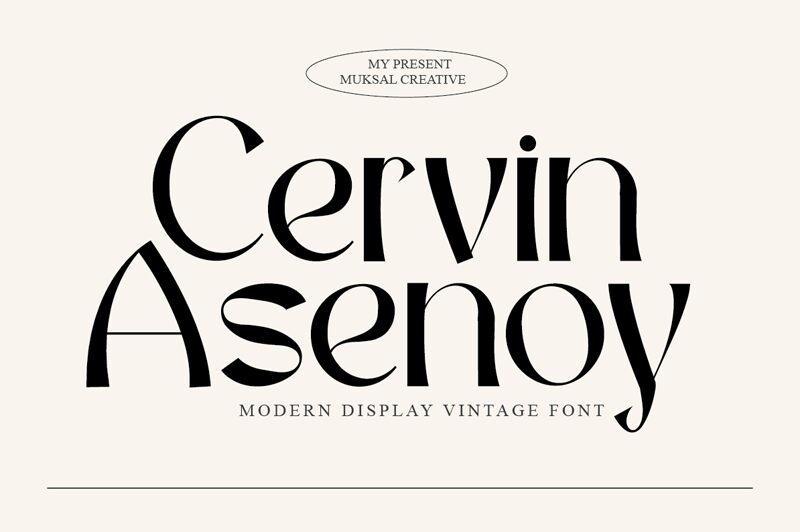
Cervin Asenoy
Cervin Asenoy, crafted by Muksal Creative, is a modern vintage font that effortlessly combines contemporary flair with timeless elegance. With its semi-light weight, this font exudes a delicate and refined aesthetic, making it perfect for projects that require a touch of sophistication.
Whether you're designing wedding invitations, fashion magazines, or high-end branding materials, Cervin Asenoy will add an air of grace and style to your creations. Its versatile nature ensures that it can seamlessly adapt to both digital and print media, allowing your designs to shine in any medium.